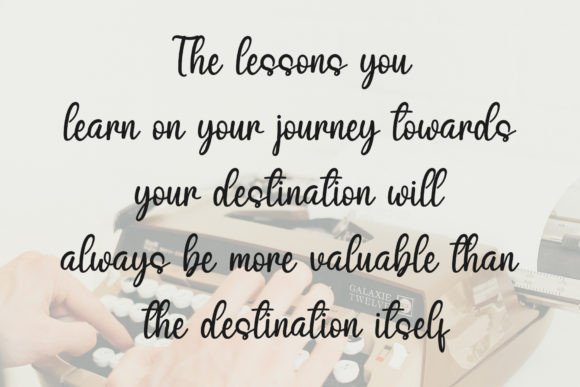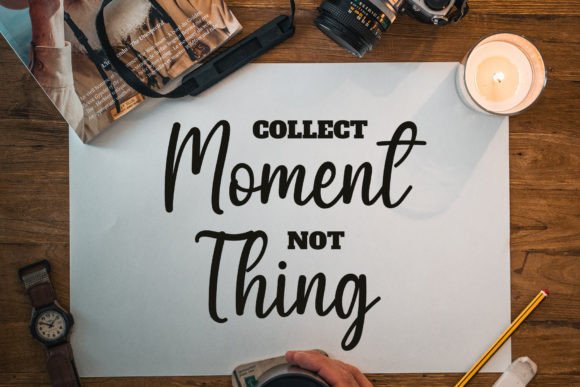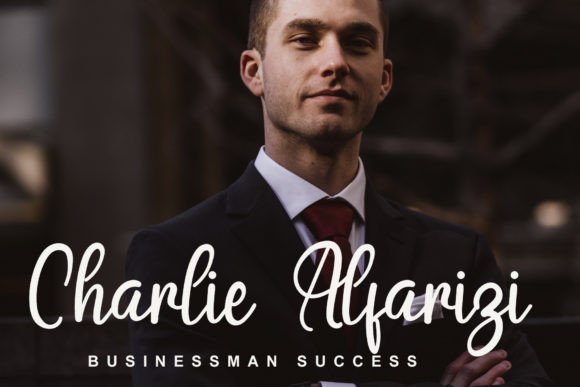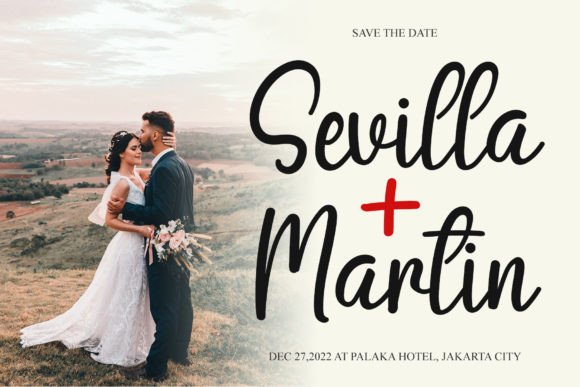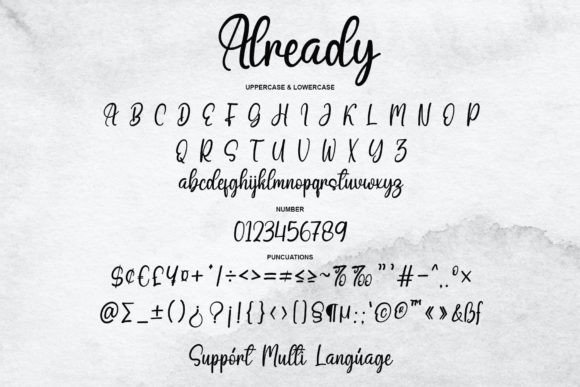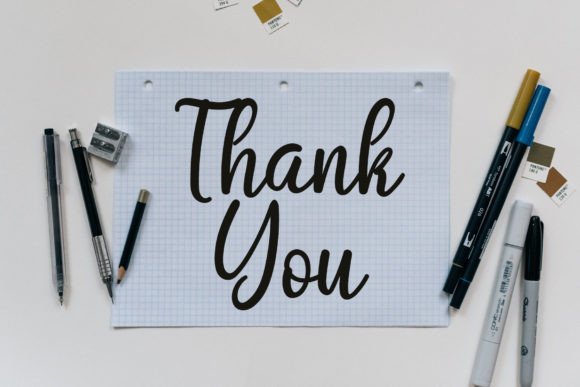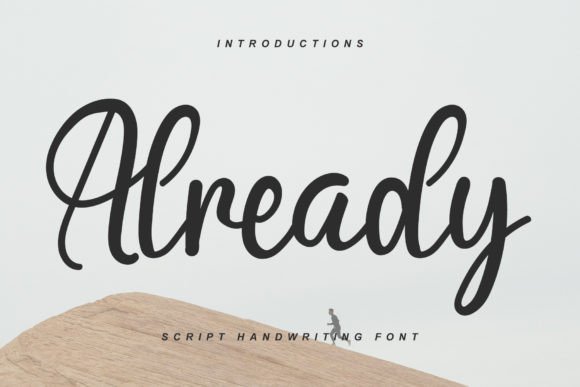
Introducing Already Font: The Perfect Handwritten Font for Your Creative Projects
Are you a designer, crafter, or DIY enthusiast looking for a unique and versatile font to elevate your creative projects? Look no further than Already Font, a beautifully designed, round lettered handwritten font that is sure to impress. In this article, we’ll take a closer look at Already Font, its features, and how you can use it to add a personal touch to your titles, invitations, letters, and more.
What is Already Font?
Already Font is a carefully crafted, handwritten font that boasts a distinctive round lettered design. Its unique charm and character make it perfect for a wide range of creative projects, from paper crafting and scrapbooking to digital design and DIY invitations. Whether you’re looking to add a touch of whimsy or a dash of elegance to your work, Already Font is the perfect choice.
Key Features of Already Font
- Unique Round Lettered Design: Already Font features a beautiful, round lettered design that sets it apart from other handwritten fonts.
- Handwritten Charm: This font has a distinctly handwritten feel, making it perfect for adding a personal touch to your creative projects.
- Versatile: Already Font can be used for a wide range of projects, from titles and invitations to letters and more.
- Easily Readable: Despite its unique design, Already Font is easy to read, making it perfect for both digital and print projects.
How to Use Already Font in Your Creative Projects
Already Font is incredibly versatile, making it perfect for a wide range of creative projects. Here are just a few ideas to get you started:
- Titles and Headings: Use Already Font to create eye-catching titles and headings for your scrapbooking pages, journals, and other paper crafting projects.
- Invitations: Create beautiful, one-of-a-kind invitations for special occasions like birthdays, weddings, and baby showers.
- Letters and Cards: Add a personal touch to your letters and cards with Already Font’s unique, handwritten design.
- Digital Design: Use Already Font in your digital design projects, such as social media graphics, blog posts, and more.
Tips for Getting the Most Out of Already Font
To get the most out of Already Font, here are a few tips to keep in mind:
- Experiment with Colors: Already Font looks great in a variety of colors, so don’t be afraid to experiment and find the perfect hue for your project.
- Pair with Other Fonts: Try pairing Already Font with other fonts to create a unique and visually appealing design.
- Use in Combination with Images: Already Font looks great in combination with images, so try incorporating it into your design projects for a professional finish.
| Font Name | Already Font |
| Author | Bintang Studio |
Already Font is a unique and versatile handwritten font that is perfect for designers, crafters, and DIY enthusiasts. Its distinctive round lettered design and handwritten charm make it perfect for adding a personal touch to your creative projects. With its ease of use and versatility, Already Font is sure to become a favorite in your design arsenal. So why wait? Download Already Font today and start creating beautiful, one-of-a-kind projects that showcase your personal style.
Whether you’re a seasoned designer or just starting out, Already Font is a great addition to any creative project. Its unique design and versatility make it perfect for a wide range of applications, from paper crafting and scrapbooking to digital design and DIY invitations. So why not give it a try and see the difference it can make in your work?